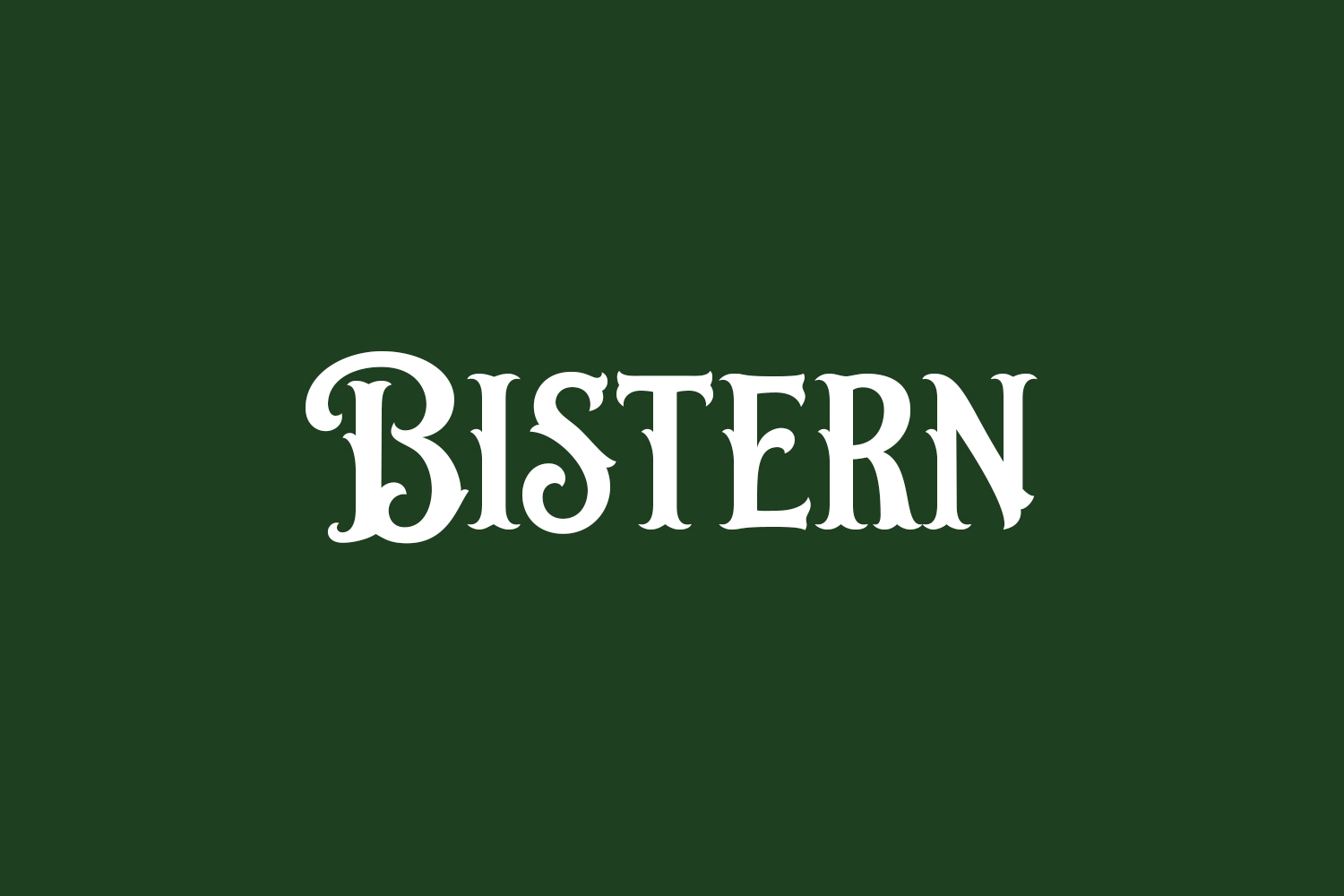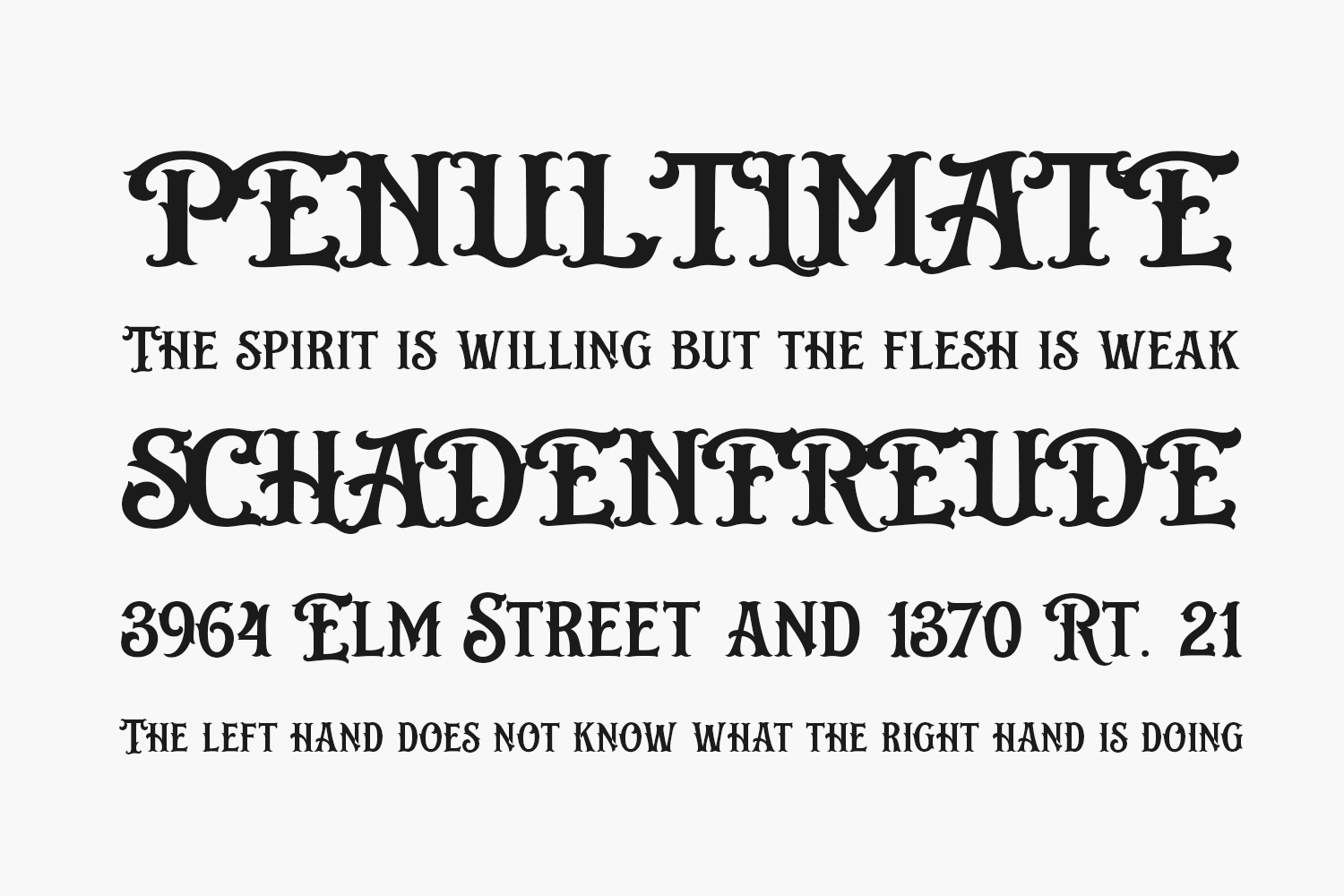
Bistern Free Font is a victorian styled, old fashioned display font. It works incredibly well on posters, labels and branding. Add it confidently to your favorite creations and let yourself be amazed by the outcome generated. Bistern Free Font was designed by Letterena Studios and is free for personal use only. Please purchase the full version for commercial use.